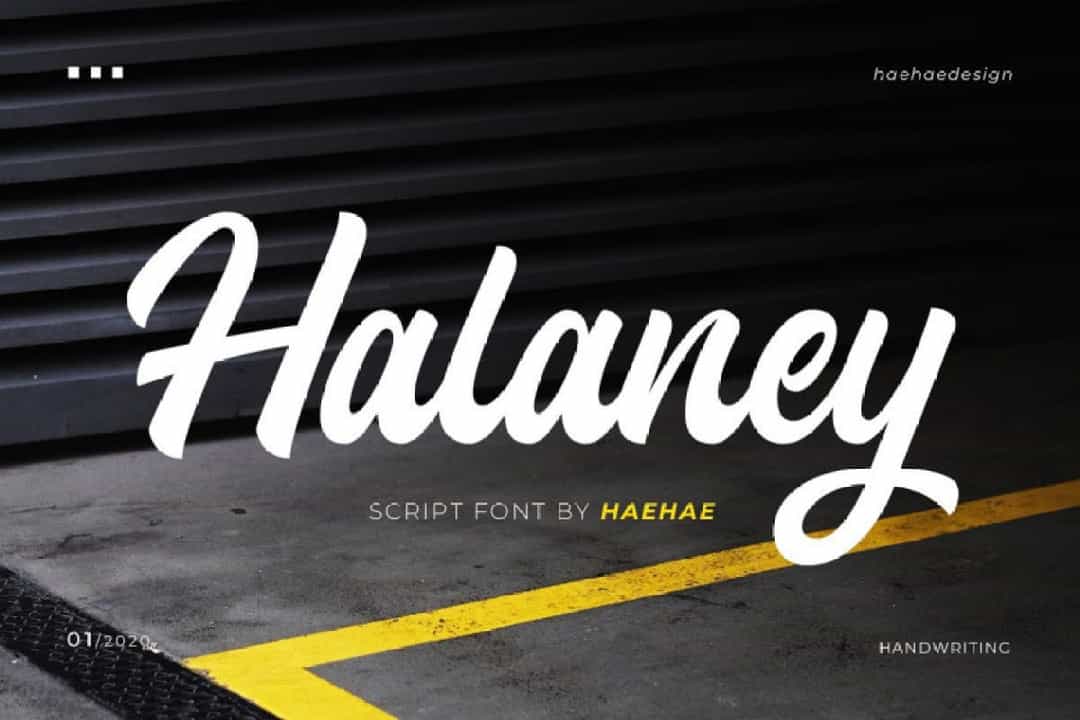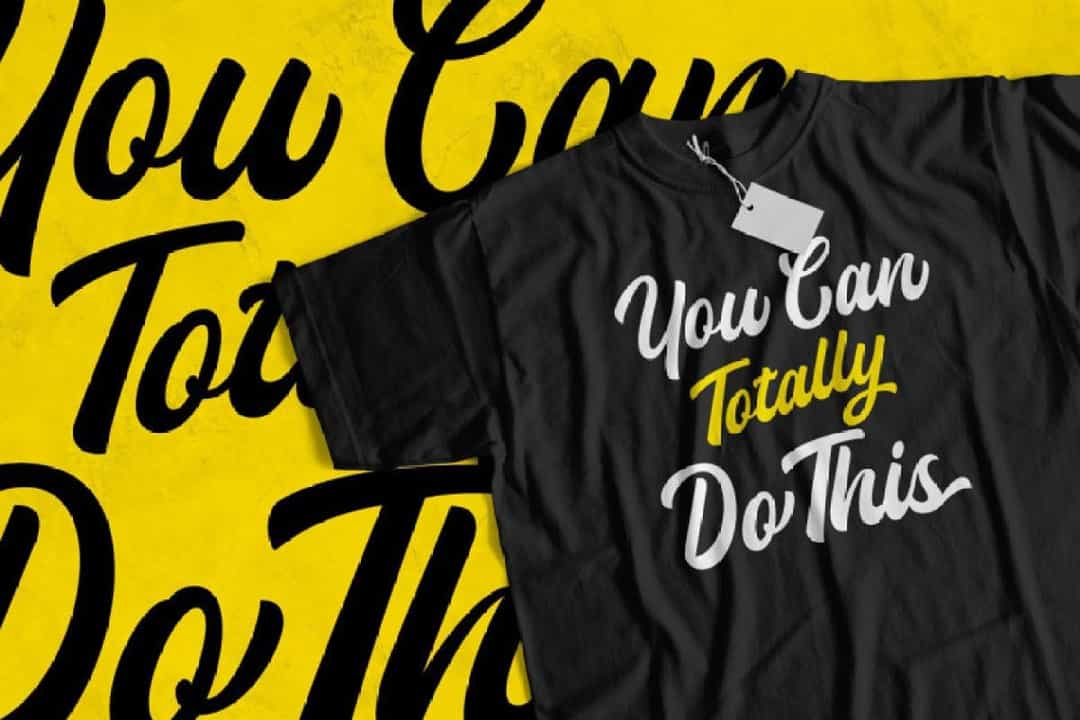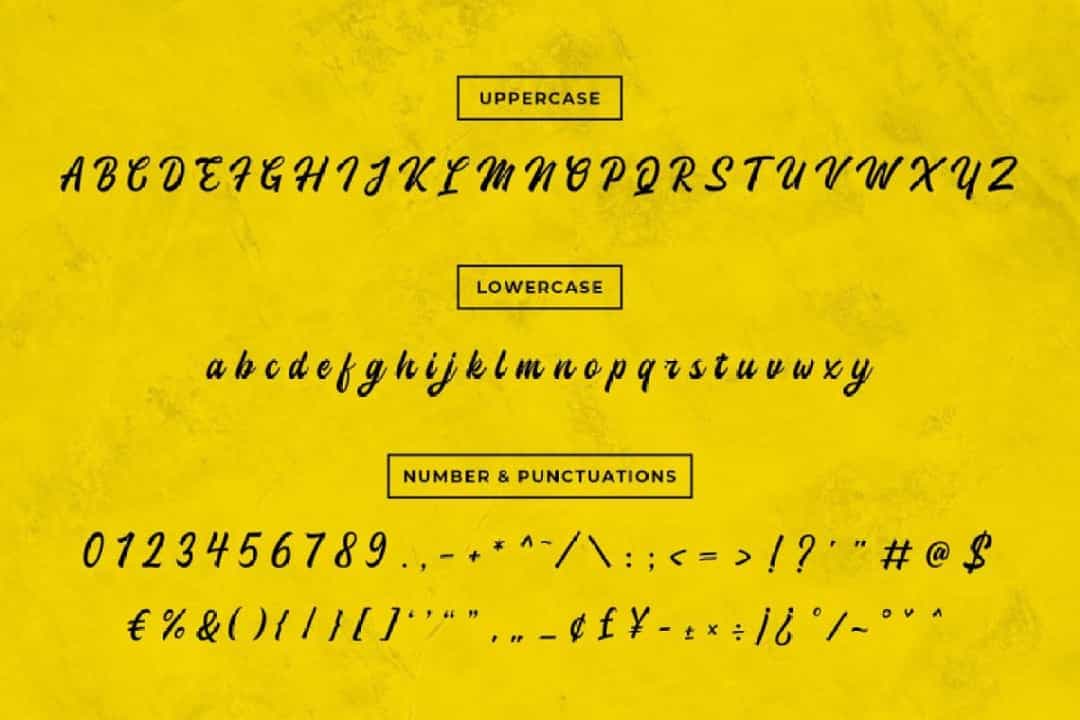
Halaney is an elegant handwritten font with beautiful handwriting that makes writing easier than ever before. Perfect for business and craft projects such as T-shirt designs, embroidery logos and publications such as banners posters invitations magazines labels books posts on social media etc – Halaney makes writing beautiful!